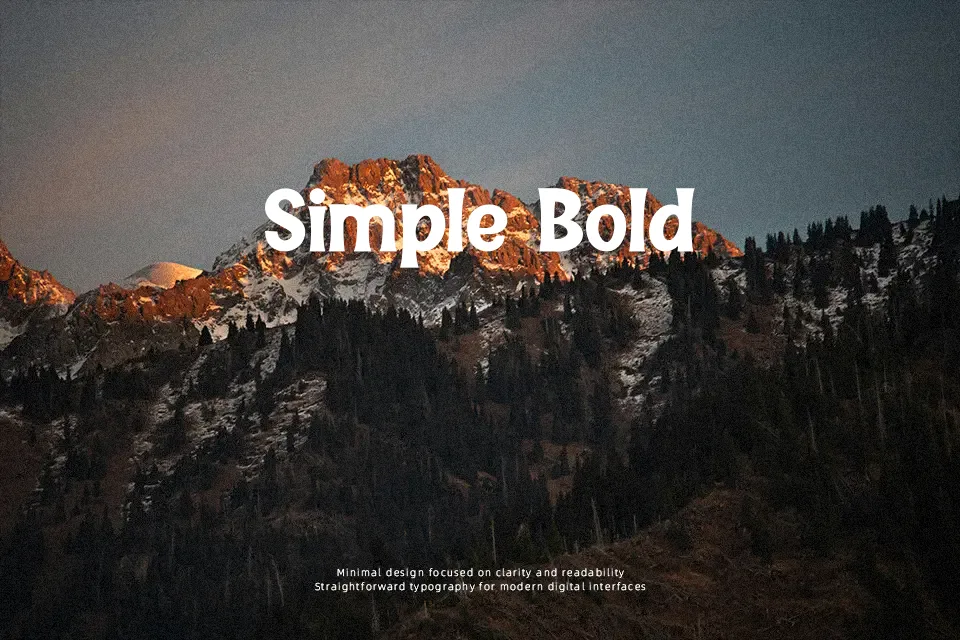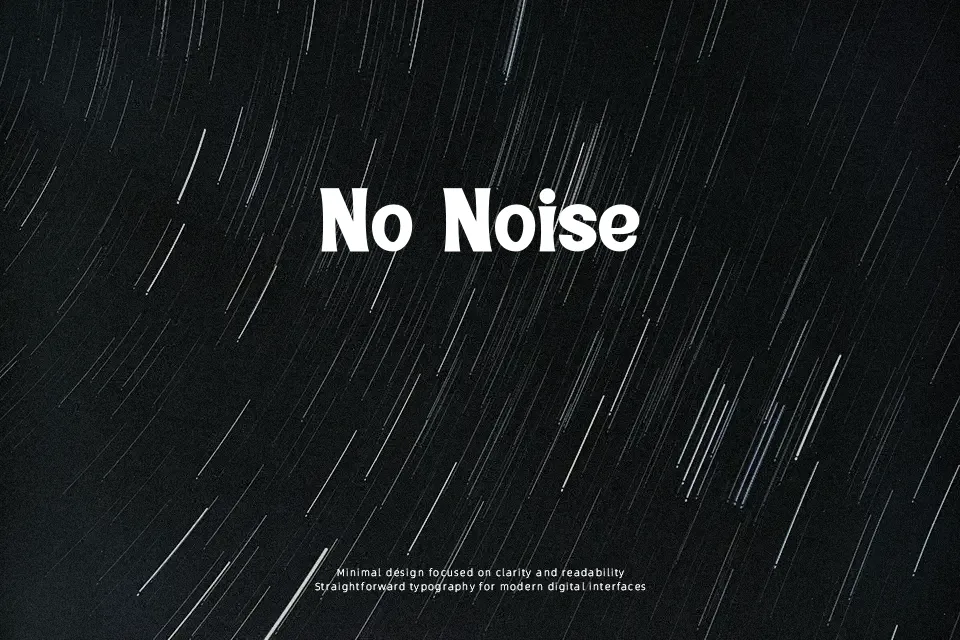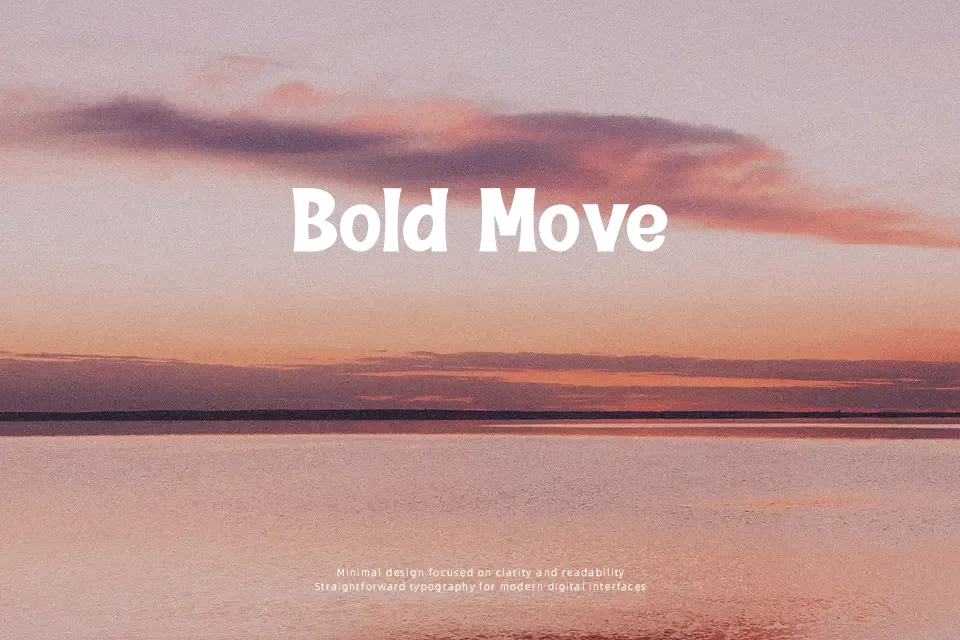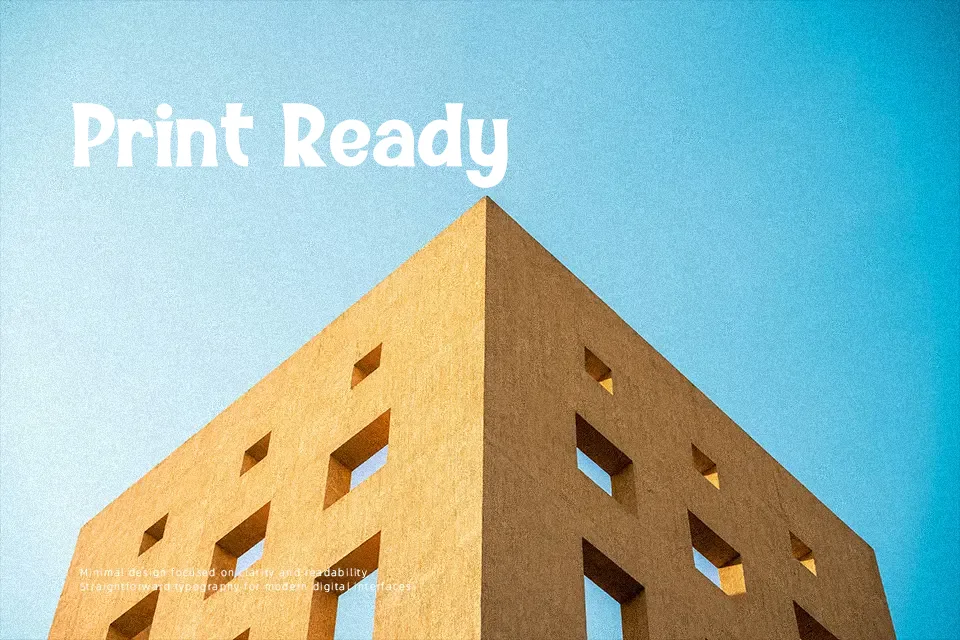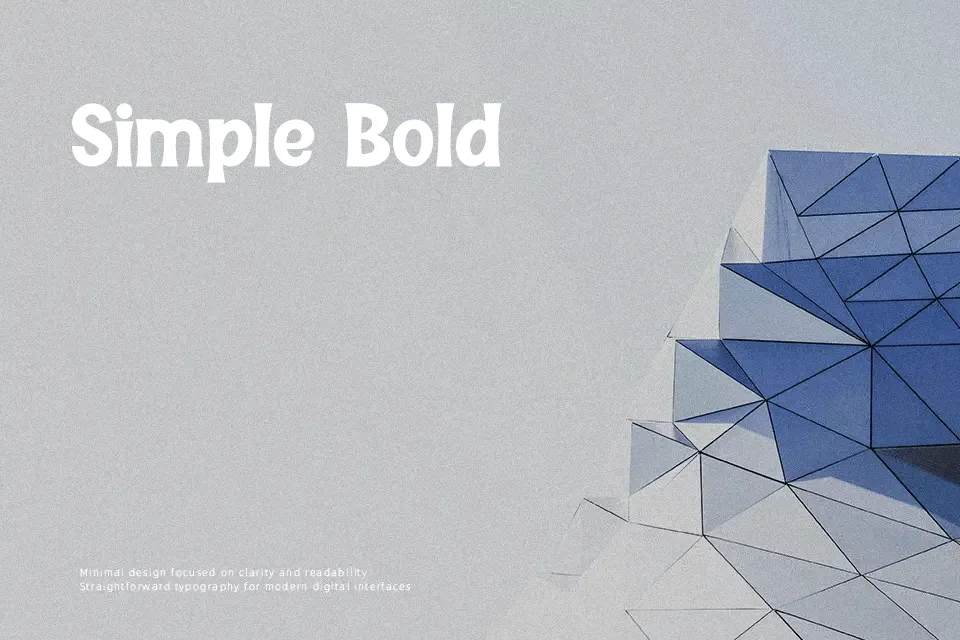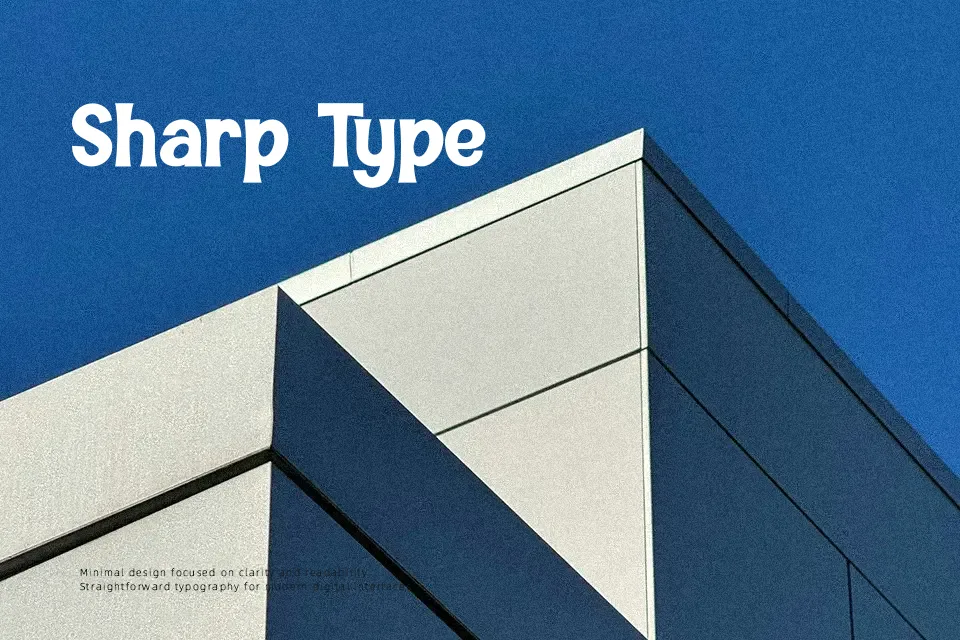
The Lucky Hamster Font
Designed by Awansenja Type
The Lucky Hamster Font features bold, rounded letterforms defined by heavy swollen strokes and minimal inner counter spaces. Its compact proportions and tight spacing produce an energetic display rhythm with soft teardrop terminals and curved outer contours. While uppercase and lowercase characters align smoothly across short titles, the dense weight significantly reduces legibility at small text sizes. The typeface proves most effective when deployed in prominent promotional graphics, though continuous paragraphs feel overly crowded.
novelty product packaging
cartoon title cards
apparel graphics
retro festival flyers
body text paragraphs
technical documentation
Perfect for headline, kids, and logo, with a bold and decorative style.